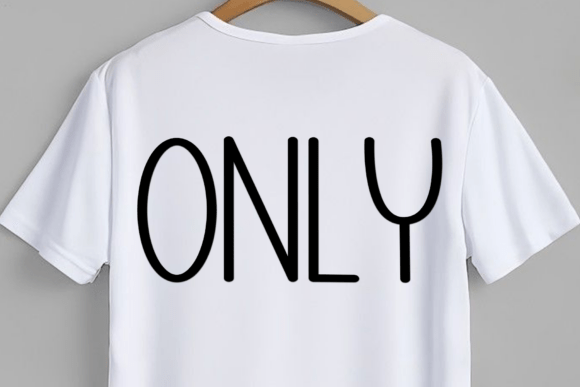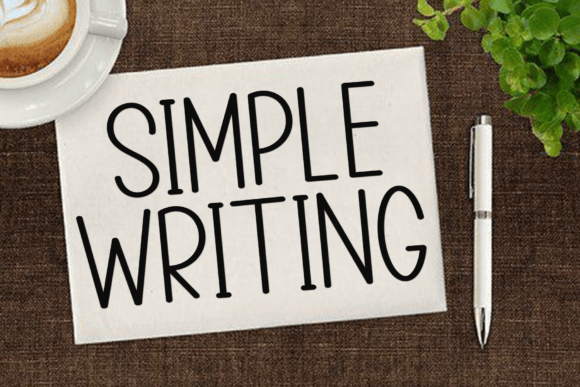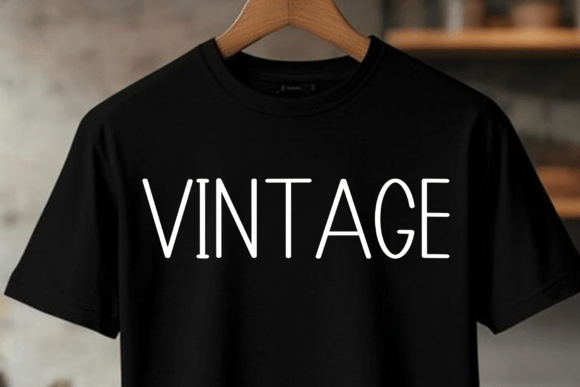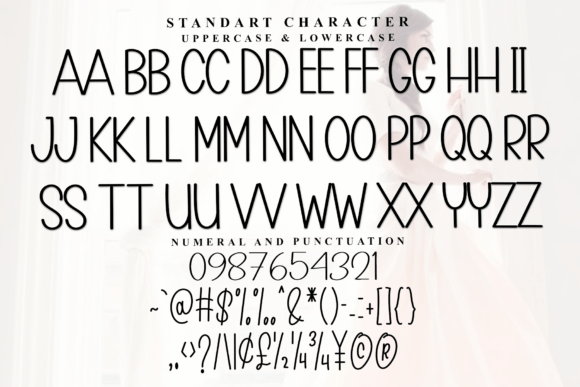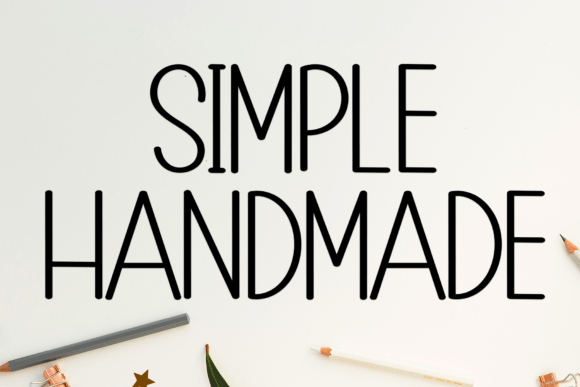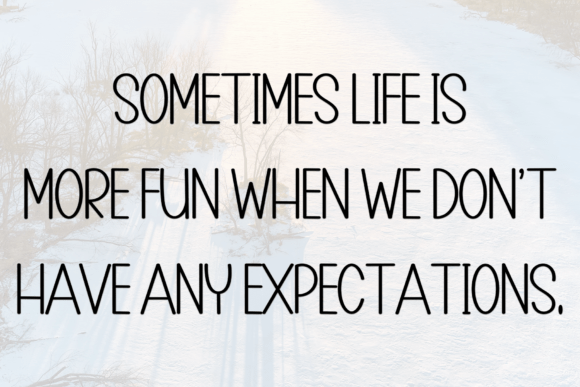
Discover the Charm of Black Tumbler Font: A Perfect Blend of Casual and Creative
In the world of typography, fonts play a crucial role in conveying the tone and personality of a design. For those seeking a font that exudes warmth, friendliness, and a touch of playfulness, the Black Tumbler Font is an excellent choice. This casual and creative font is designed to add a relaxed and approachable feel to any project, making it perfect for personal endeavors, invitations, social media graphics, and more.
The Unique Characteristics of Black Tumbler Font
One of the standout features of the Black Tumbler Font is its round, playful strokes. These strokes give the font its distinctive charm, creating a sense of warmth and friendliness that is hard to achieve with more formal fonts. The overall effect is a relaxed and approachable feel that immediately draws the viewer in. Whether you’re working on a personal project, crafting an invitation, or designing social media graphics, this font is sure to make your work stand out.
A Hand-Drawn Aesthetic for a Personal Touch
The Black Tumbler Font boasts a charming, hand-drawn aesthetic that adds a fun and unique touch to any design. This hand-crafted look ensures that your work doesn’t feel generic or over-produced. Instead, it gives your designs a personal touch that resonates with viewers on a more intimate level. The font’s unique character is perfect for designers and crafters looking to infuse their work with personality and warmth.
Versatility and Compatibility
Practical Applications for Designers and Crafters
So, where can you use the Black Tumbler Font? The possibilities are endless! Here are a few ideas to get you started:
- Personal Projects: Whether you’re creating custom stationery, photo albums, or gifts, the Black Tumbler Font adds a personal and thoughtful touch.
- Invitations: Birthdays, weddings, baby showers – this font is perfect for all types of invitations, offering a warm and welcoming tone.
- Social Media Graphics: Stand out on social media with custom graphics that use the Black Tumbler Font. It’s great for posts, stories, and even custom banners.
- DIY Crafts: If you’re into crafting, this font can be used for hand-lettering projects, scrapbooking, and other DIY endeavors.
Why Choose Black Tumbler Font?
With so many fonts available, why choose the Black Tumbler Font? Here are a few compelling reasons:
- Unique Style: Its playful, hand-drawn aesthetic sets it apart from more traditional fonts.
- Emotional Connection: The warmth and friendliness of the font help create an emotional connection with the viewer.
- Versatility: It’s compatible with various design applications and suitable for a wide range of projects.
The Black Tumbler Font is a versatile and charming addition to any designer’s toolkit. Its unique blend of casualness and creativity makes it perfect for a variety of projects, from personal endeavors to professional designs. With its hand-drawn aesthetic, compatibility across various platforms, and the ability to evoke warmth and friendliness, this font is sure to enhance your designs and make them more engaging. Whether you’re a seasoned designer or a crafting enthusiast, the Black Tumbler Font is an excellent choice for adding a personal and creative touch to your work.